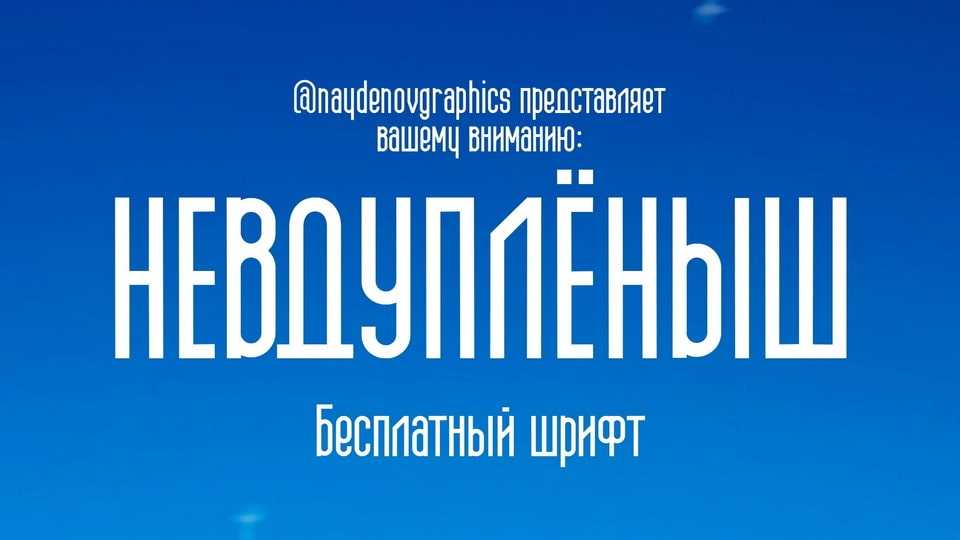
Download Nevduplenysh font, a condensed sans serif typeface with a unique combination of rounded corners and square contours. Nevduplenysh font is an ideal option for outstanding graphics, posters, logos, headlines, or editorial use.
Designer: Dmitry Naydenov